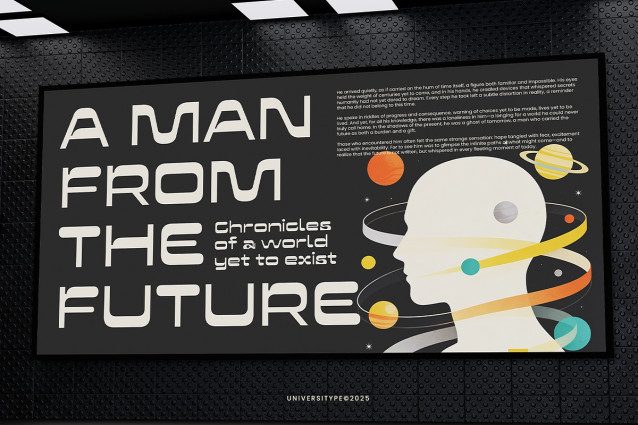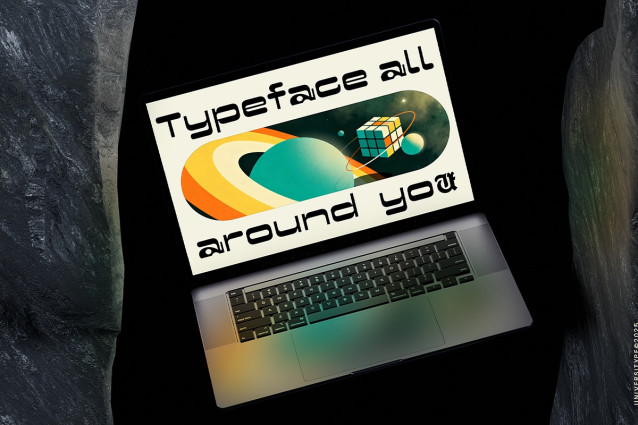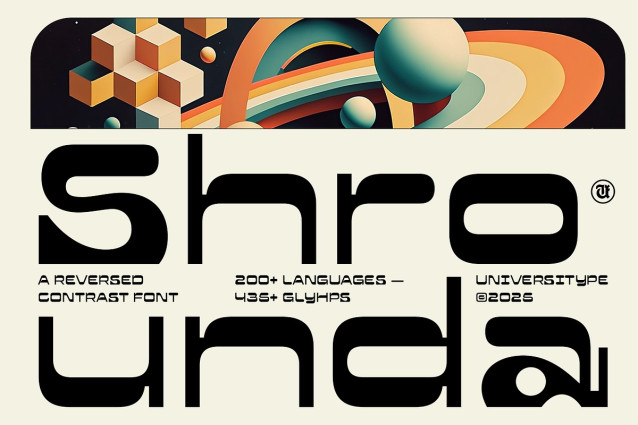
UT Shrounda Font
UT Shrounda Font is an experimental reverse-contrast display font with a bold, architectural structure. The weight is focused on horizontal strokes, creating a strong visual rhythm that feels futuristic, structured, and expressive. Its distinctive construction makes Shrounda ideal for impactful headlines, logos, and modern graphic work that needs instant character.